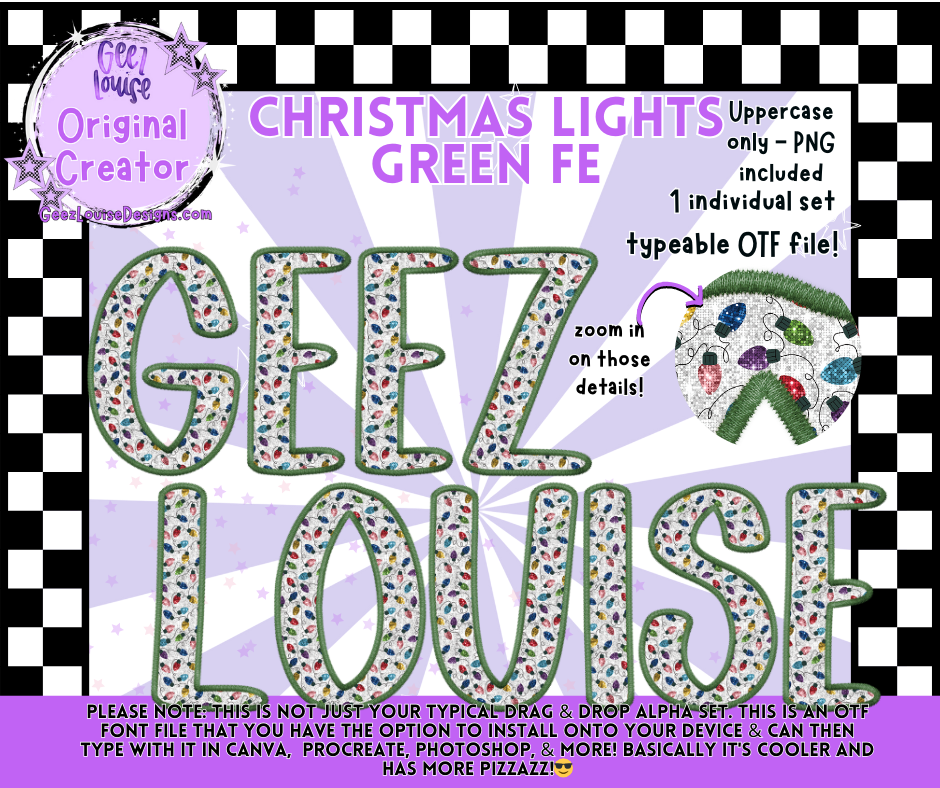
Christmas Lights Green Faux Embroidery Alpha Font | OTF & PNG Letters
✨ Light up your designs with the Christmas Lights Green Faux Embroidery Alpha Font! ✨
This festive alpha set features colorful Christmas lights with a faux embroidery green trim, perfect for holiday-themed projects that need an extra touch of cheer. Bring the glow of the holidays to all your digital creations!
💡 Why you’ll love it:
• Bright and colorful details that capture holiday magic.
• Faux embroidery edges for a textured, stitched look.
• Perfect for Christmas shirts, greeting cards, mugs, ornaments, and seasonal decor designs.